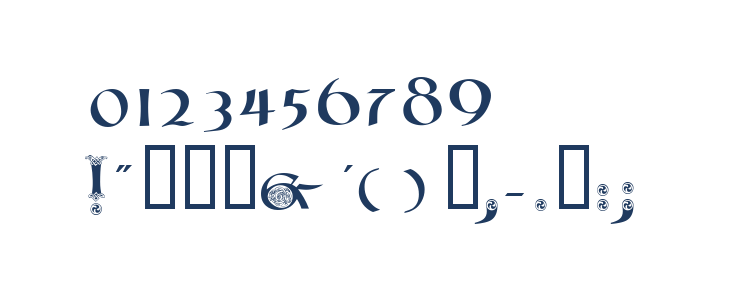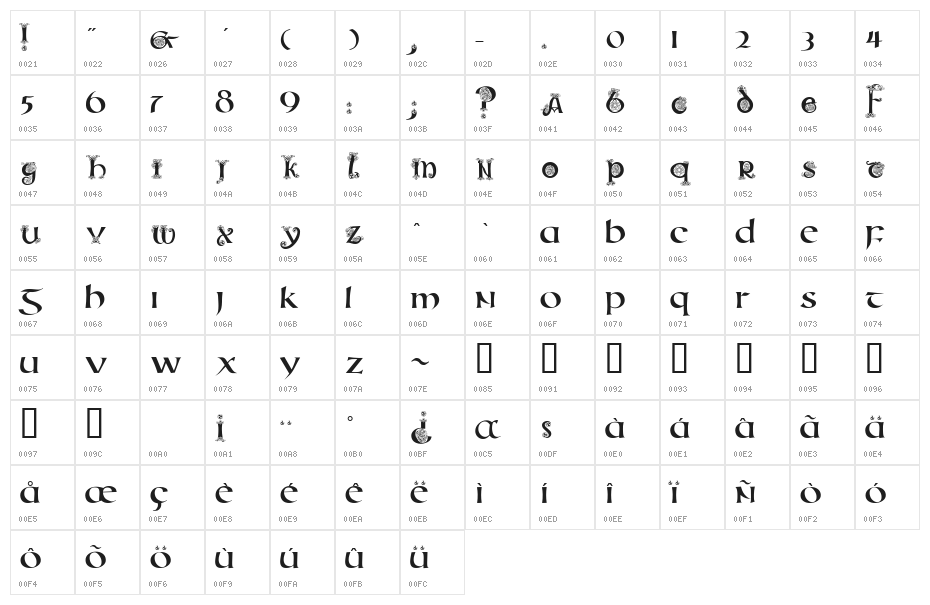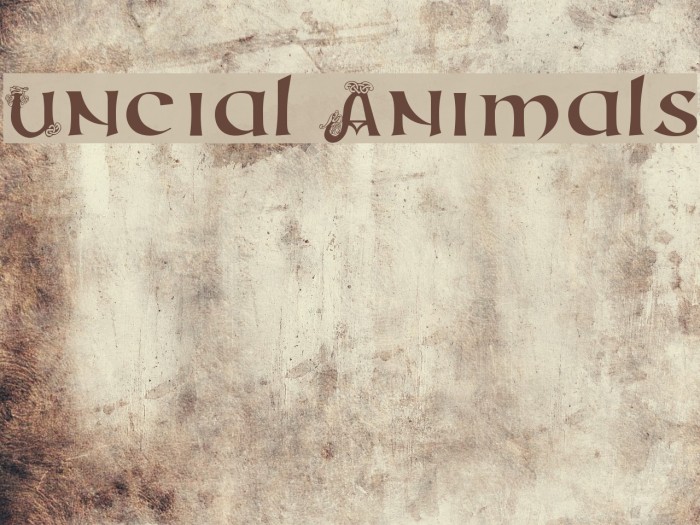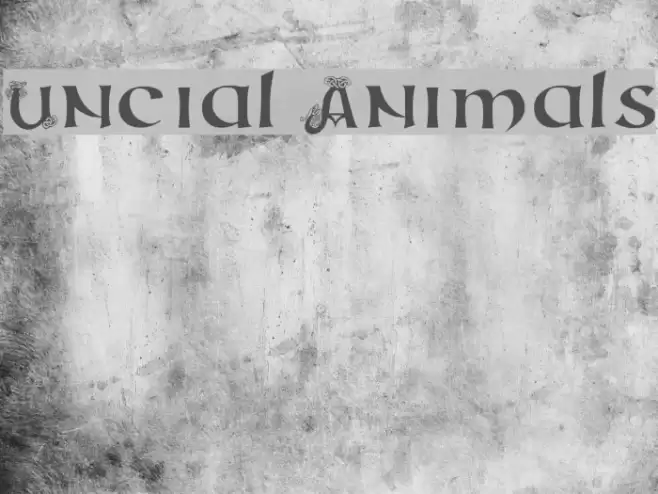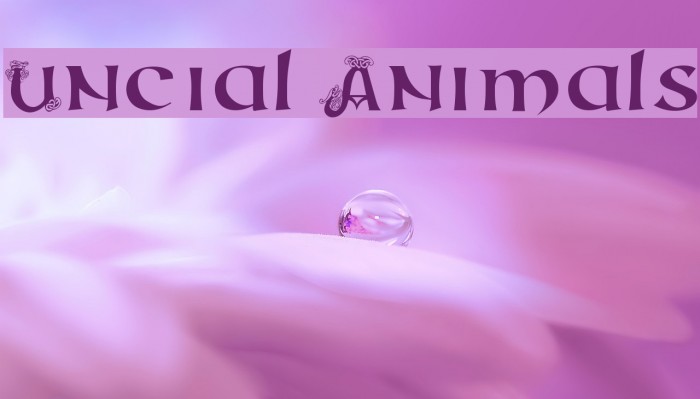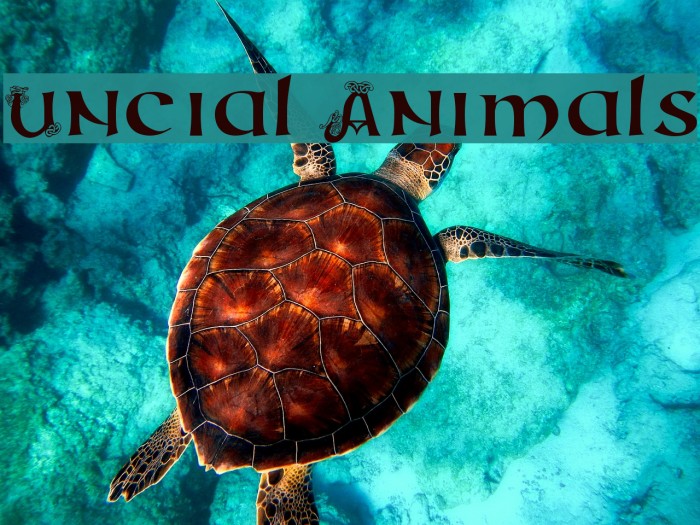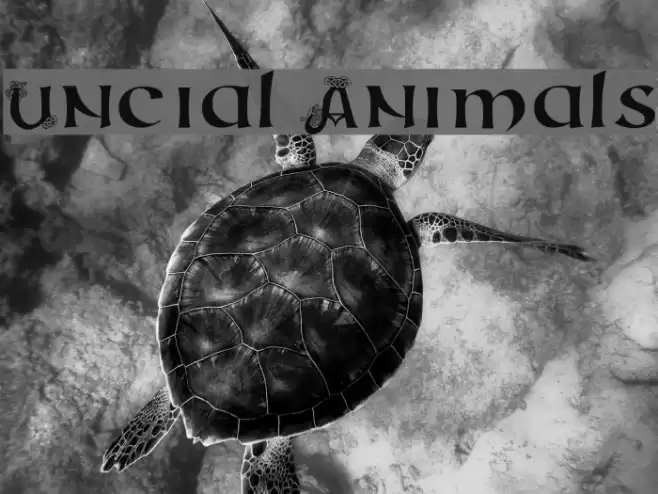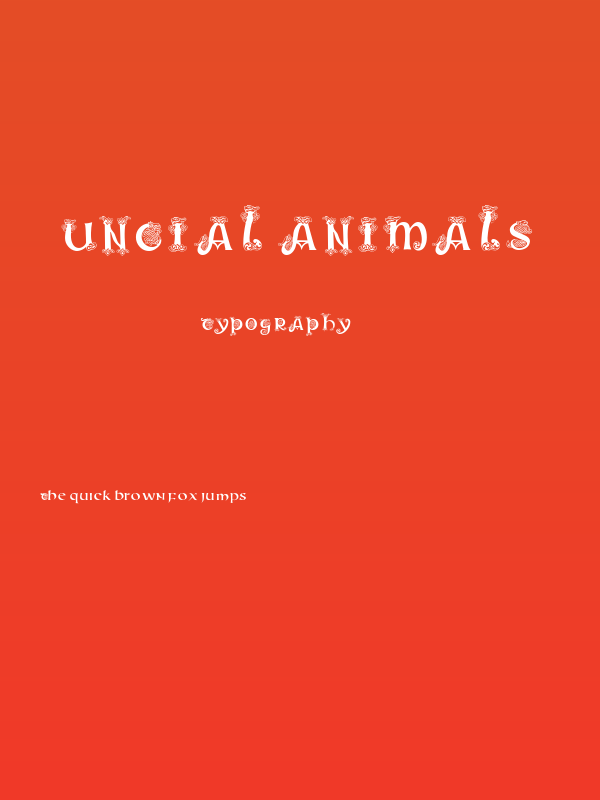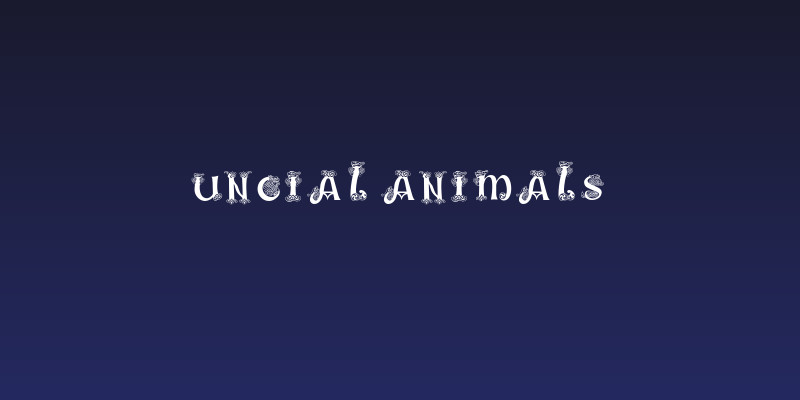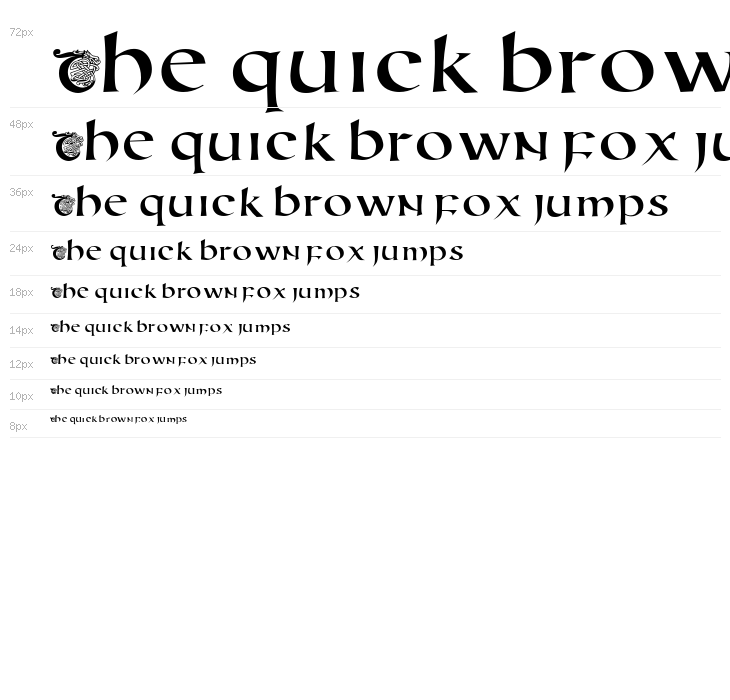
Uncial Animals Font
Uncial Animals Description
This font features a unique blend of uncial script with decorative animal motifs integrated into the letterforms. Each character is adorned with intricate designs that resemble mythical creatures, adding an artistic and whimsical touch. The uppercase letters are particularly elaborate, showcasing detailed embellishments that make them stand out. The lowercase letters maintain a more traditional uncial style but still incorporate subtle decorative elements. The numerals and special characters follow the same theme, with consistent design elements throughout. This font is ideal for projects that require a historical or fantastical aesthetic, offering a distinctive and eye-catching appearance.